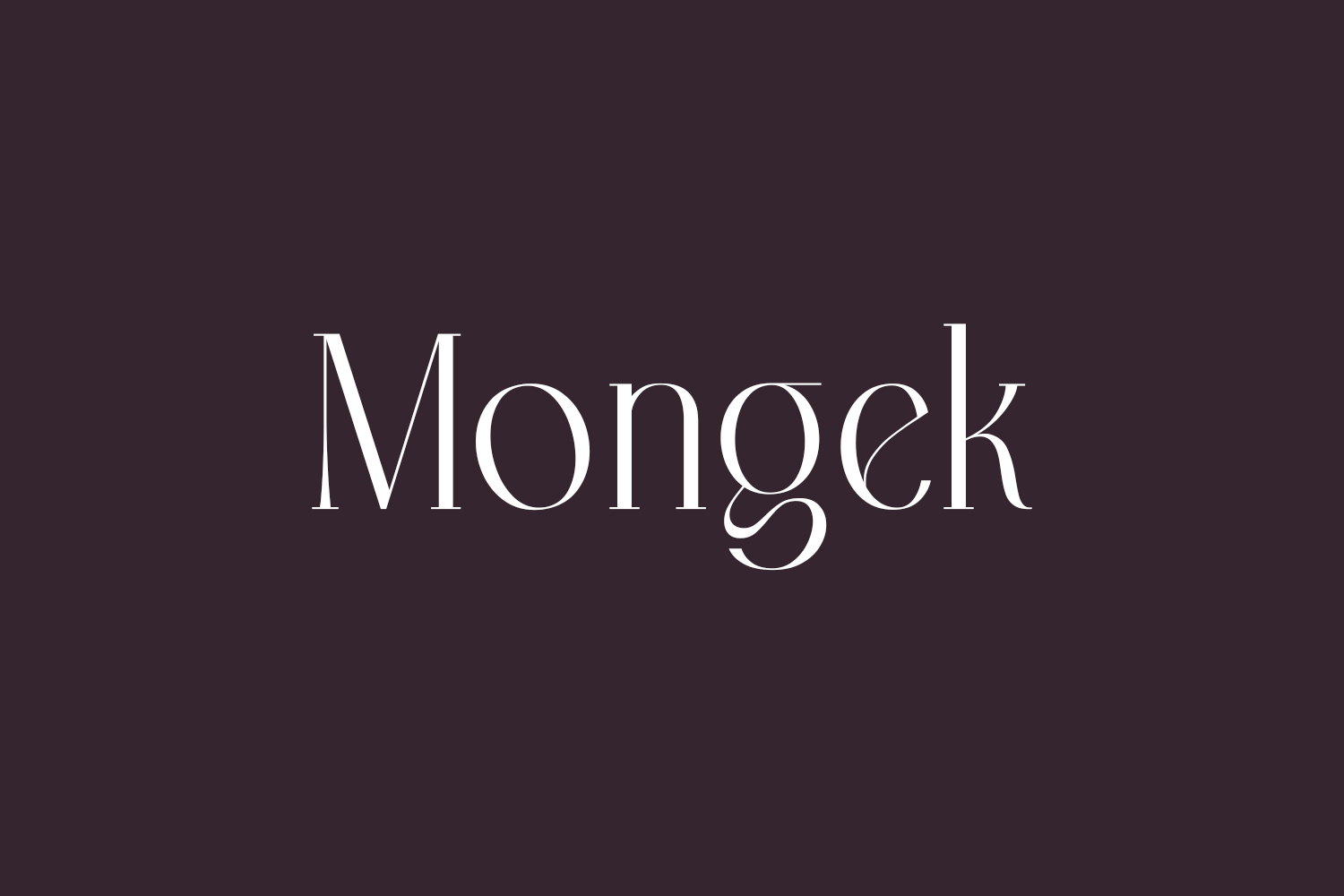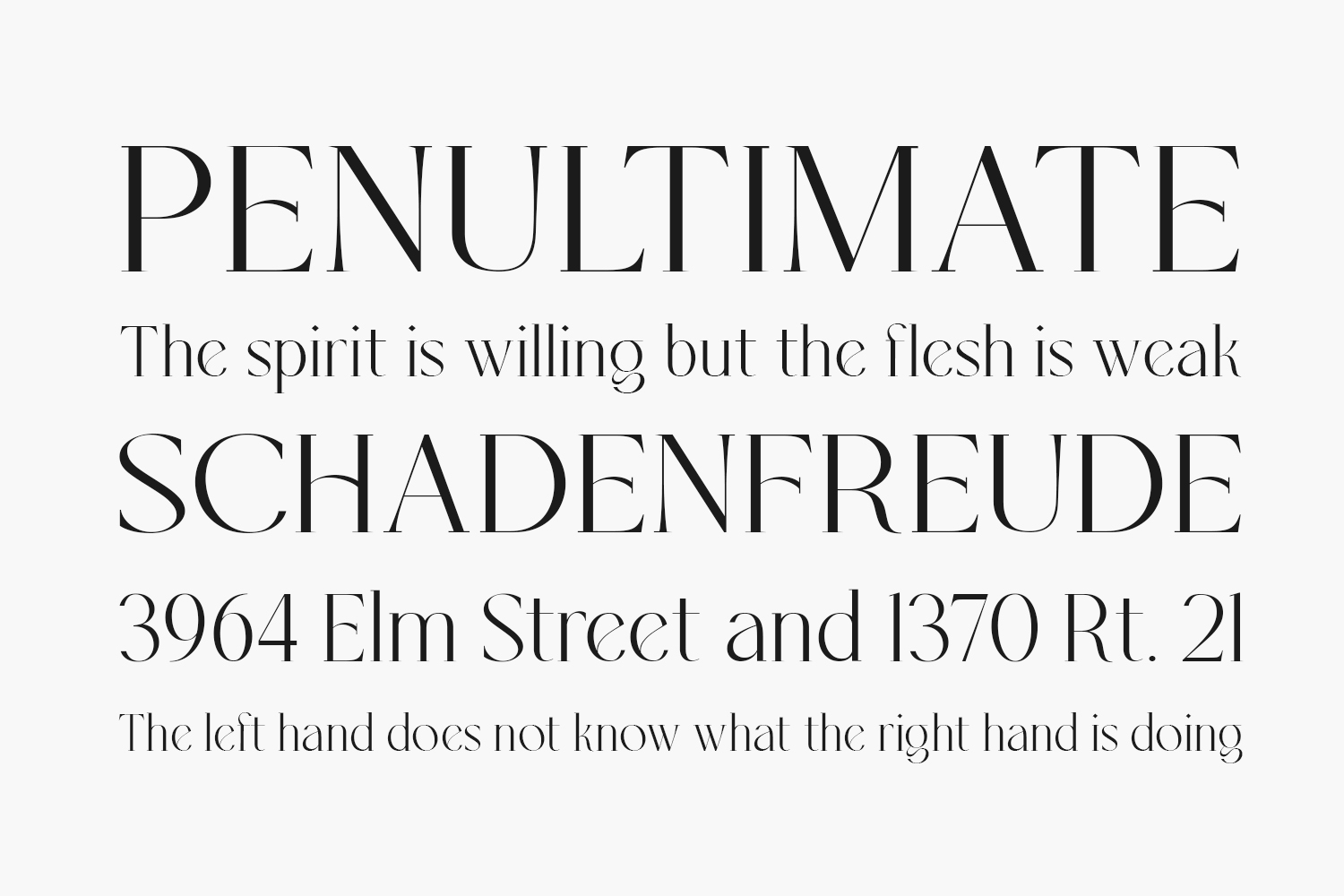
Mongek Free Font is a modern and dynamic serif font. Mongek Free Font is free for personal use only. Please purchase the full version for commercial use.
Designed by Alit Design